- Facilitating Exchange with a Global Type Design Master… Expanding Korea’s Creative Ecosystem into International Networks
- Strengthening Sandoll’s Role in Enhancing the Global Competitiveness of Korea’s Type Industry
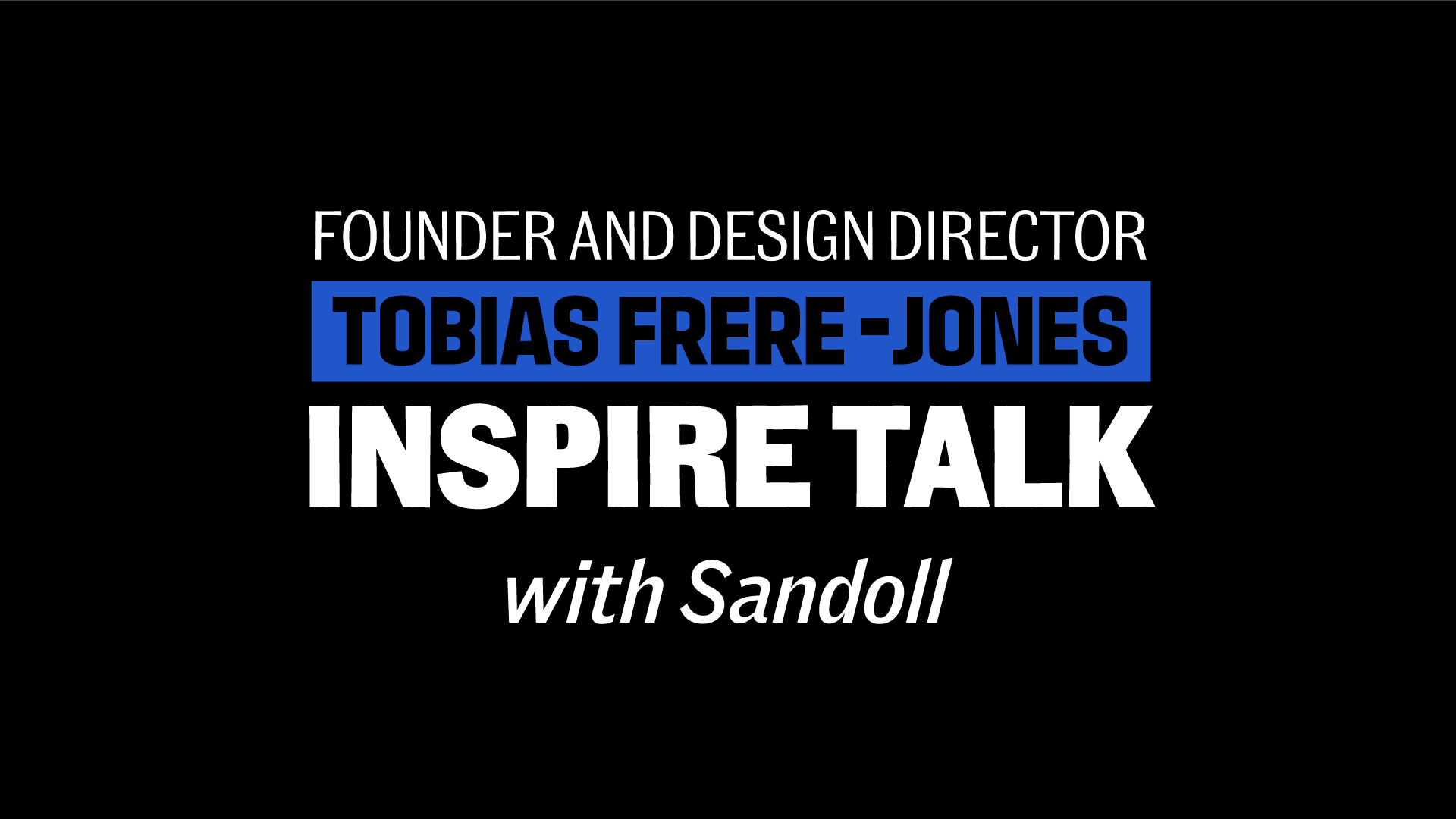
Sandoll Inc. (CEO Youngho Yun), a content creator platform company, announced on the 24th that it hosted an “Inspire Talk” featuring world-renowned type designer Tobias Frere-Jones for Korean font designers.
The Inspire Talk was held on November 21 (Fri.) at Sandoll’s headquarters in Seongdong-gu, Seoul, for designers and studios participating in SandollCloud. The program was designed to create a meaningful venue that connects the Korean type industry directly to the global creative ecosystem.
For more than 25 years, Tobias has developed numerous influential typefaces widely used across modern design environments, including Gotham, Whitney, and Poynter Oldstyle. Gotham, in particular, gained international recognition after being used in former U.S. President Barack Obama’s campaign, while Whitney—originally developed for the Whitney Museum of American Art—has expanded its impact across diverse brand environments, including Delta Air Lines.
During the Inspire Talk, an in-depth discussion unfolded around Tobias’s design philosophy and practical methodologies, illustrated through cases of his representative typefaces used in international brands and campaigns. A focused Q&A session with Korean designers further enabled substantial knowledge exchange.
Beyond this program, Sandoll continues to strengthen global competitiveness and expand the creative ecosystem of Korea’s type design industry through initiatives such as its annual font conference Saisiot. These ongoing efforts were also evident during the Inspire Talk, where participating designers noted the value of experiencing global creative trends firsthand.
A Korean designer who attended the session commented, “It was inspiring to hear directly about Tobias’s long-standing research, design process, and sources of inspiration. The session deepened my understanding of the fundamentals of type design and global trends, and it was a truly insightful and meaningful experience.”
A Sandoll representative added, “Sandoll is committed to expanding international networks for the Korean type industry. This exchange has provided Korean creators with an important opportunity to align with global standards and explore new creative directions. We will continue to drive various initiatives to strengthen the global competitiveness of Korea’s type industry.”